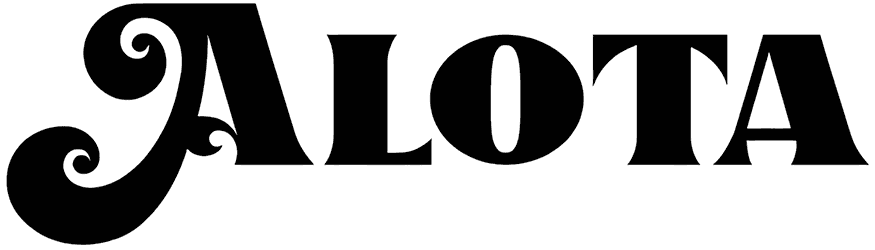
Alota Font
A reliable retro font such as Alota can be your game-changer in the middle of bringing your creative ideas, including gift cards, covers, packaging, stickers, or editorial projects to real life.
Since it offers two distinctive versions of uppercase letters, the lack of lowercase letters would be easily overlooked. The characters’ edges of this masterpiece are stretched and well-rounded, thus conveying a sense of classic, drama, vintage, or royal would be a piece of cake.
Say hi to “Alota” retro typeface. Inspired by 70’s design styles, a good decade where we saw many calm colors with groovy, bold, 3D and round shape.